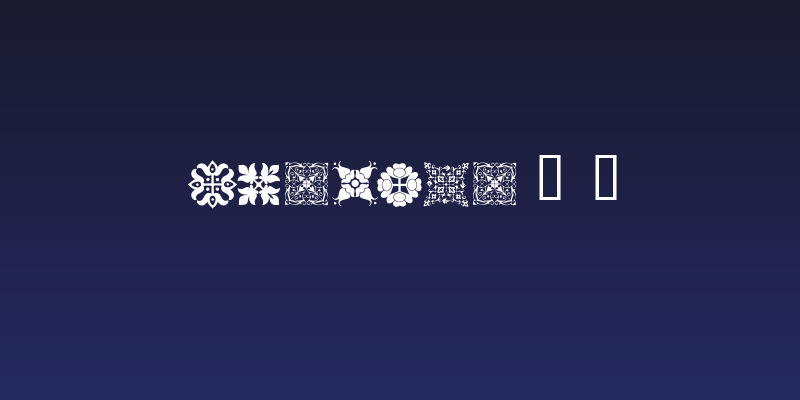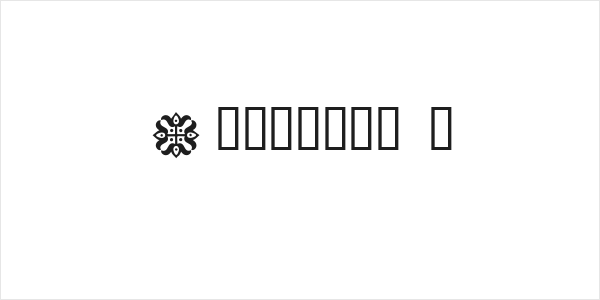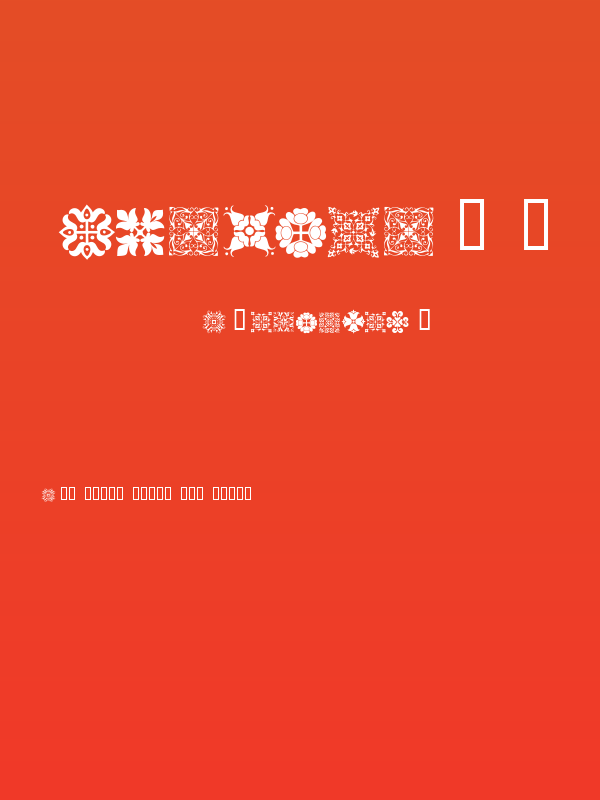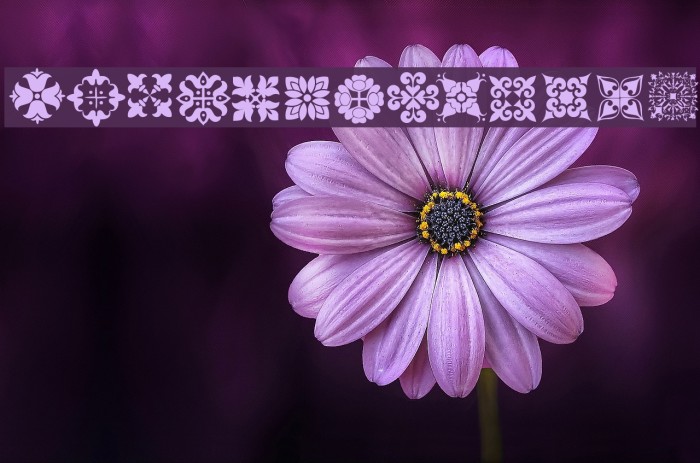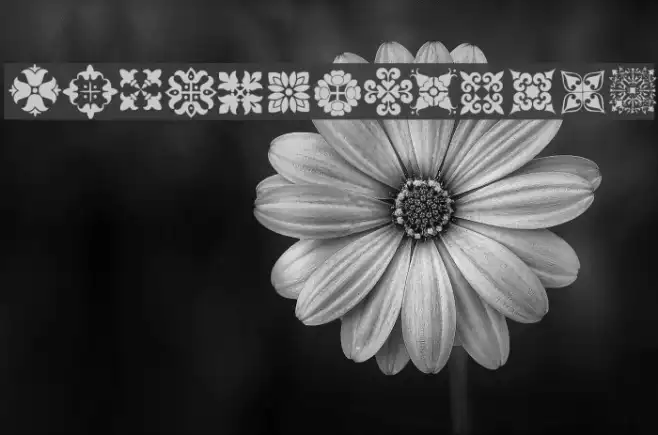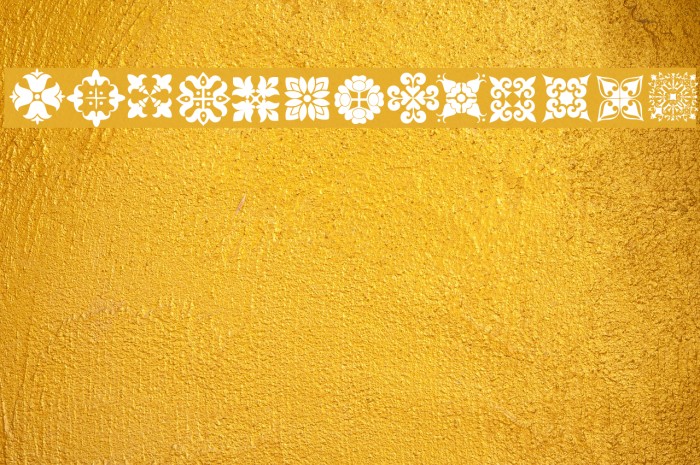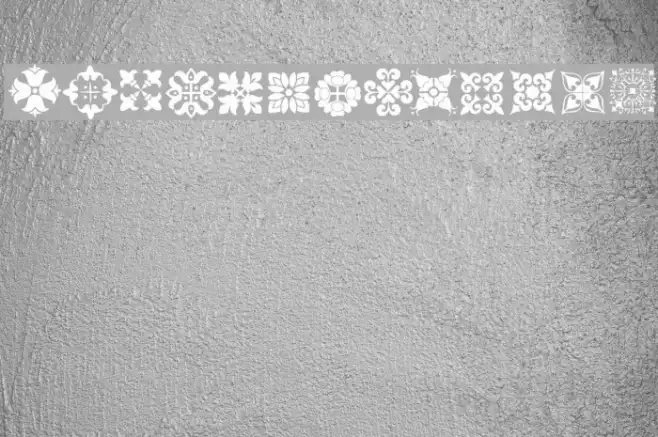
Designs2 2 Font
Designs2 2 Description
A decorative font featuring intricate, ornamental tile-like designs for each character, with high contrast and bold, complex patterns. Each glyph is unique and highly stylized, resembling vintage or classical motifs.
| Overall Style | Decorative, Vintage |
| Use Case | Borders, Decorative elements, Initials, Logos |
| Proposed Projects | Borders, invitations, certificates, decorative headings, packaging, artistic projects. |